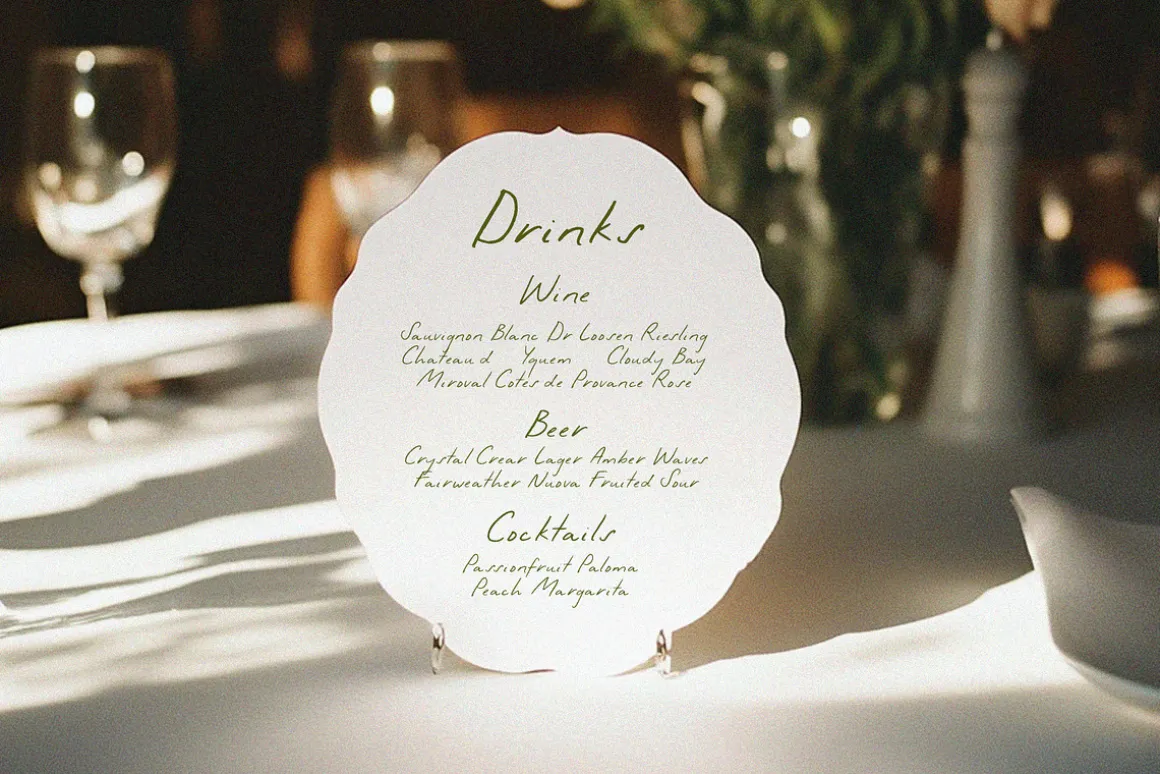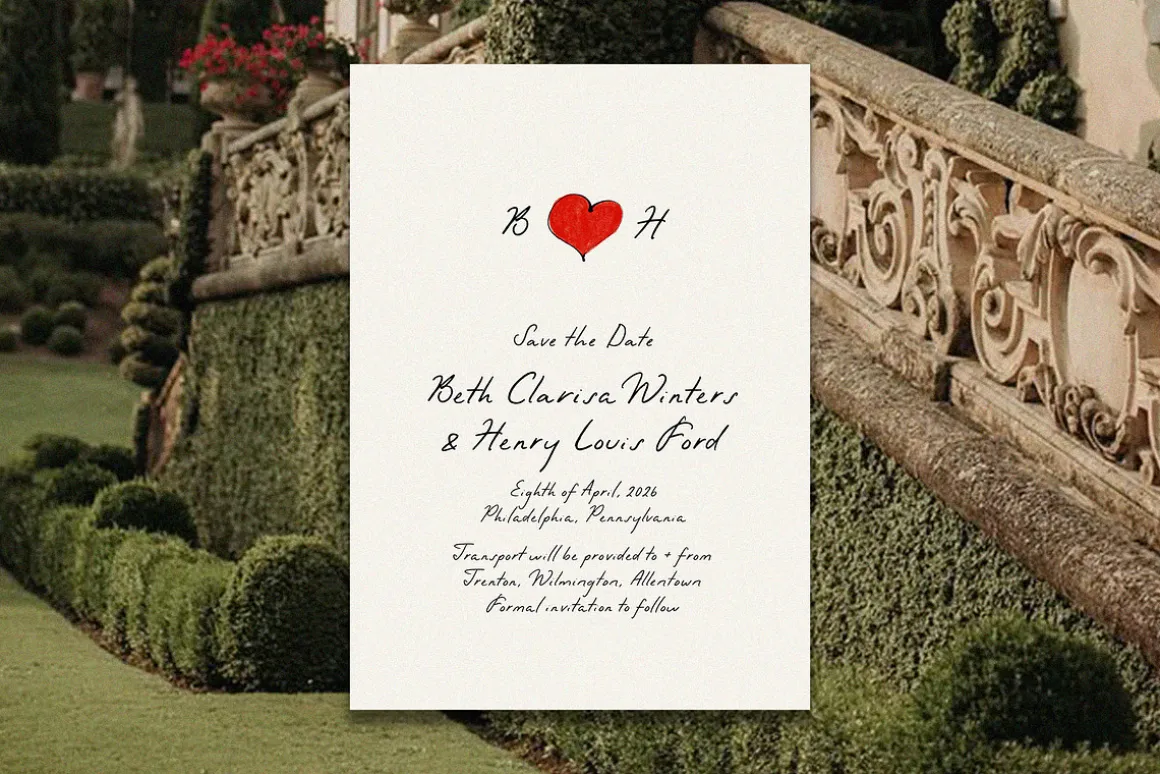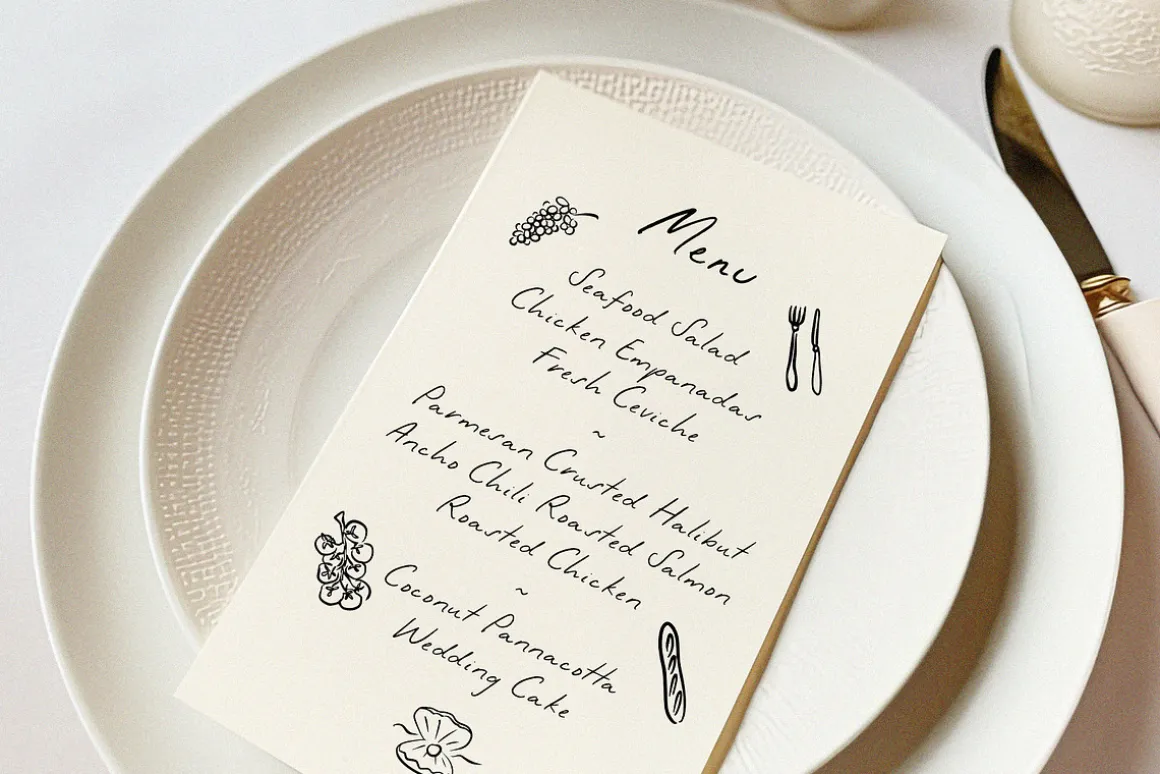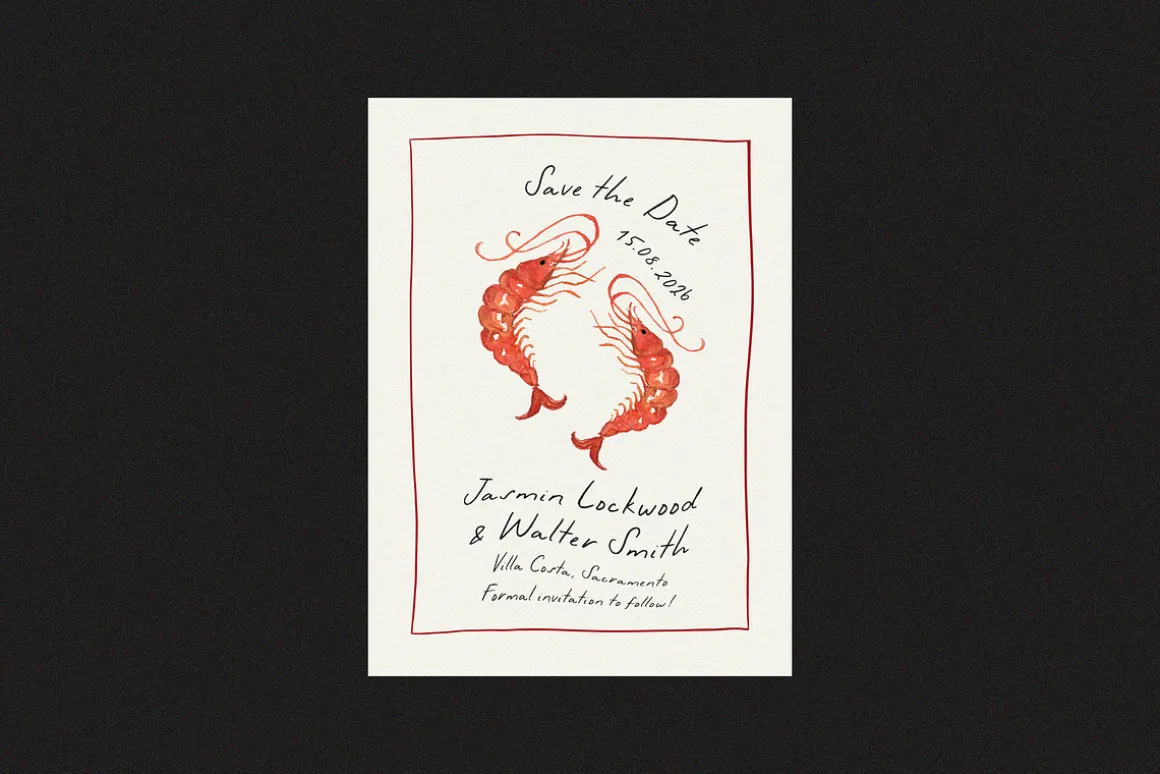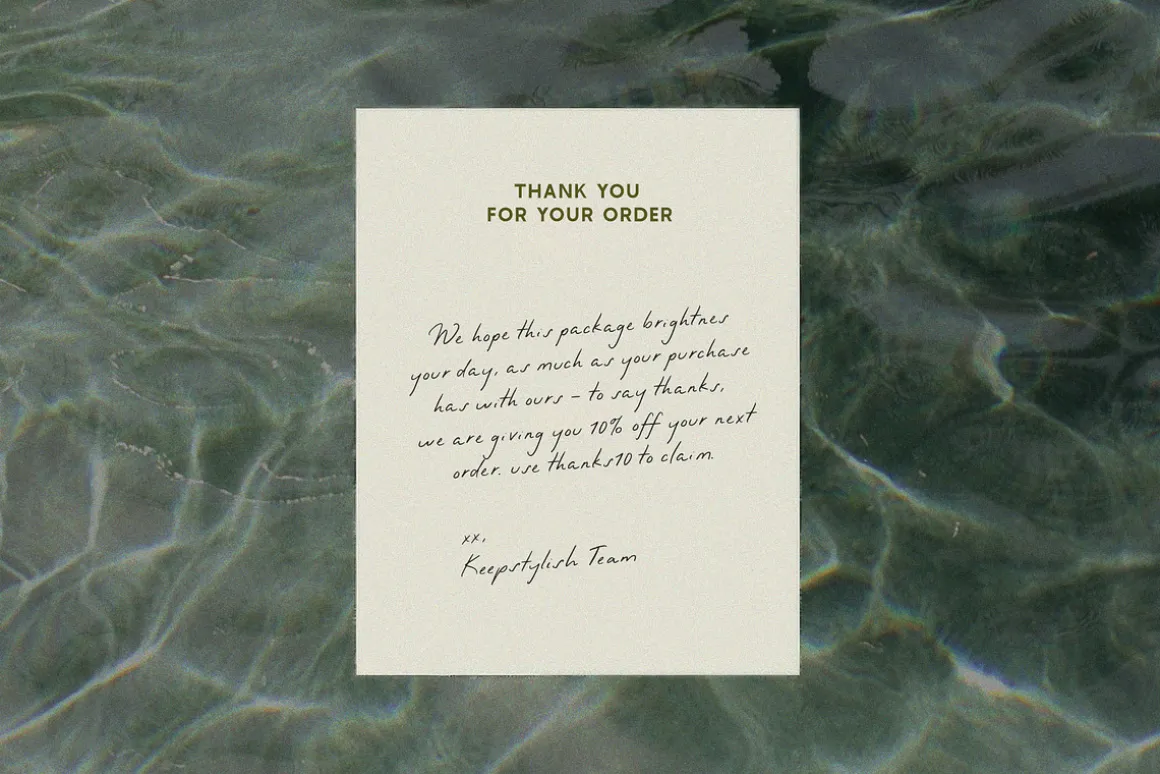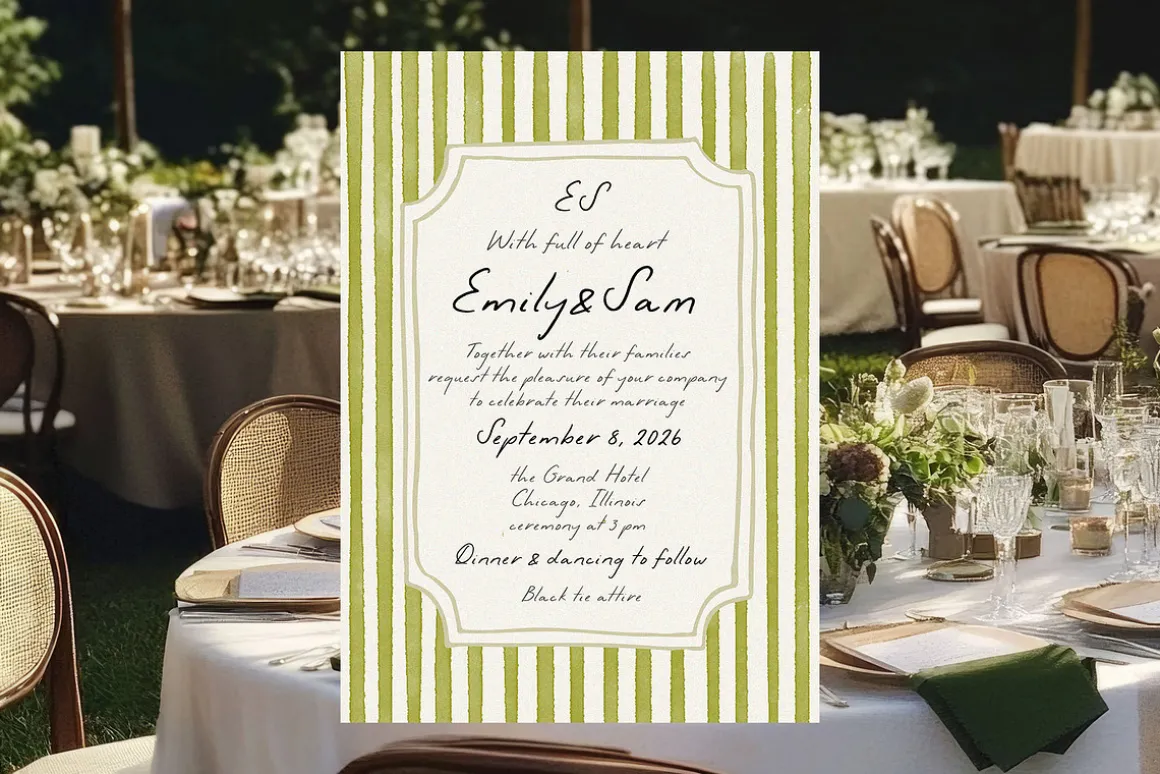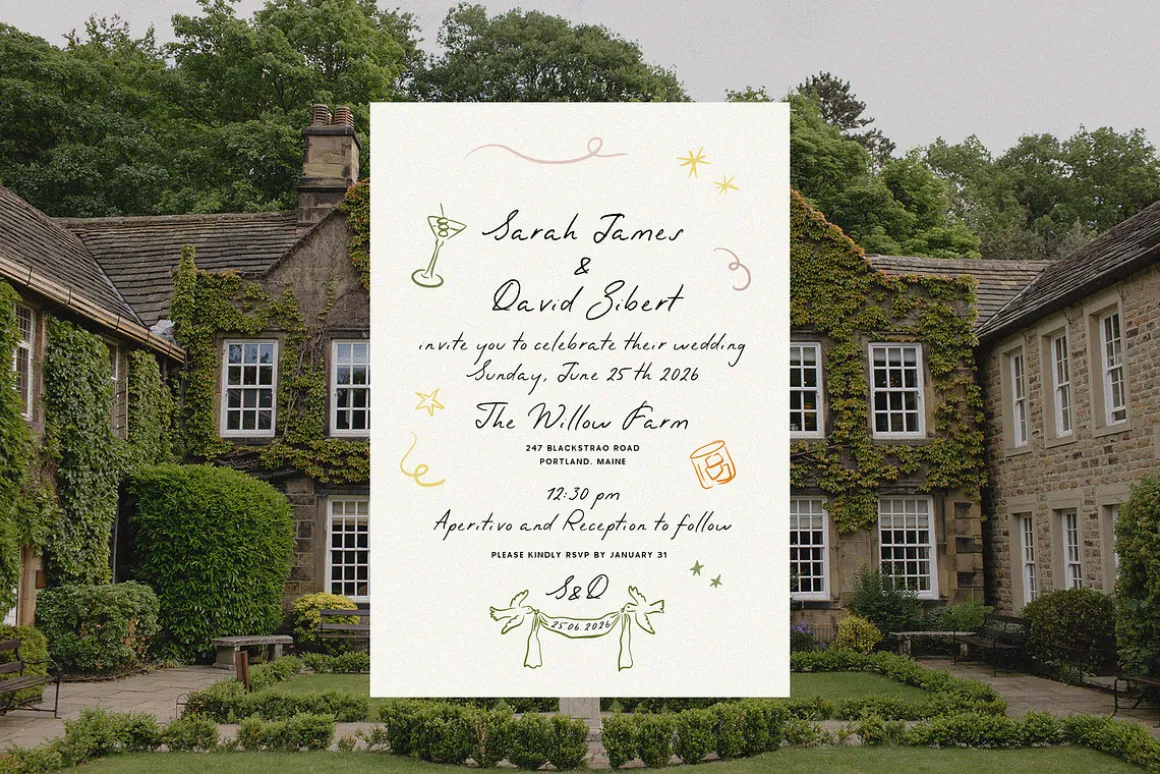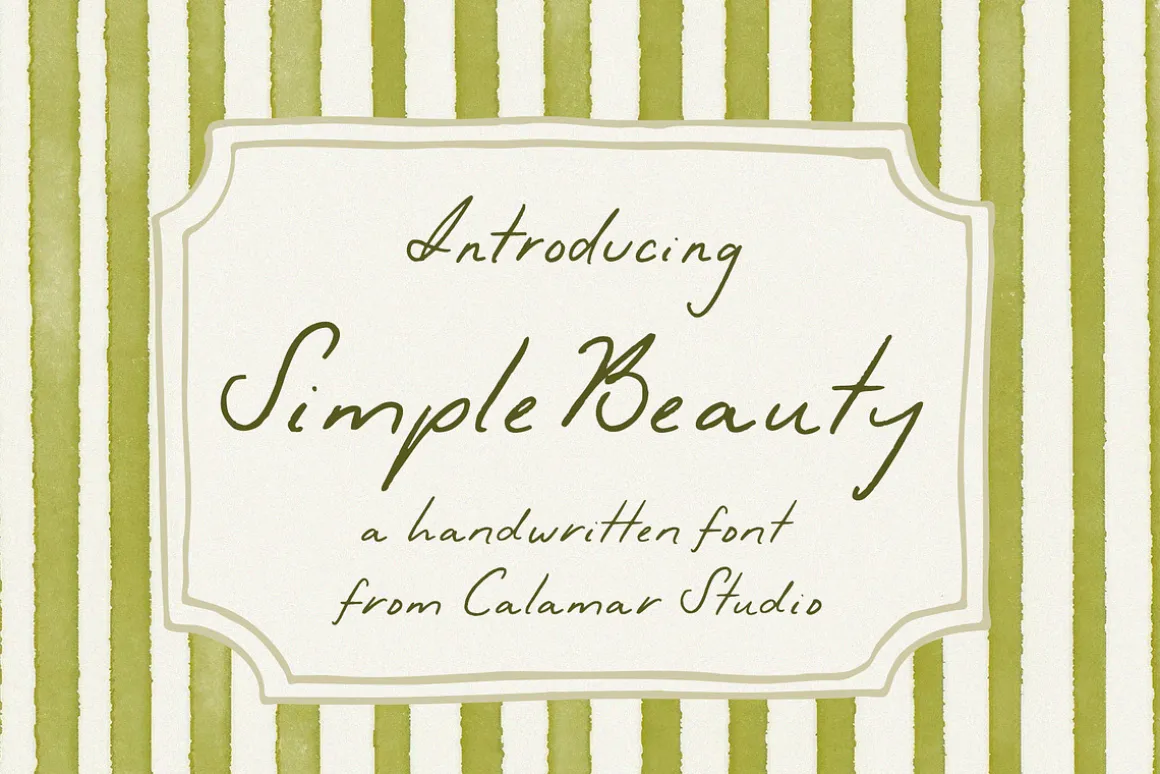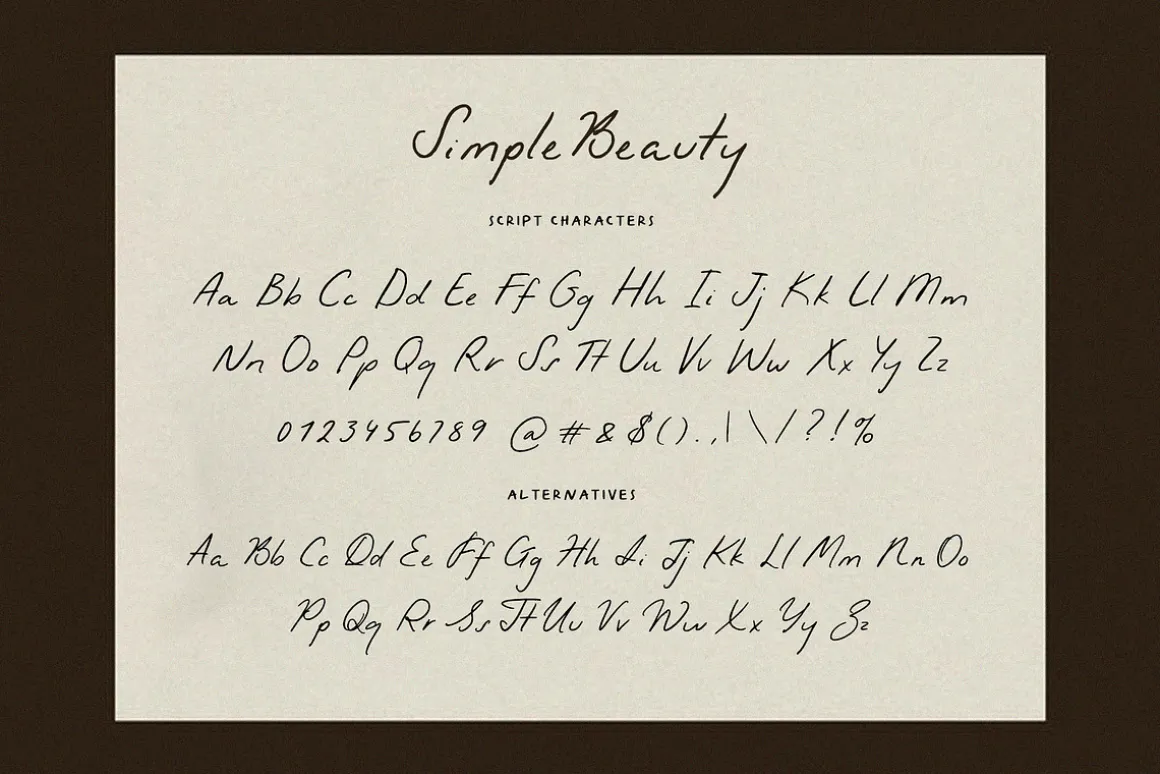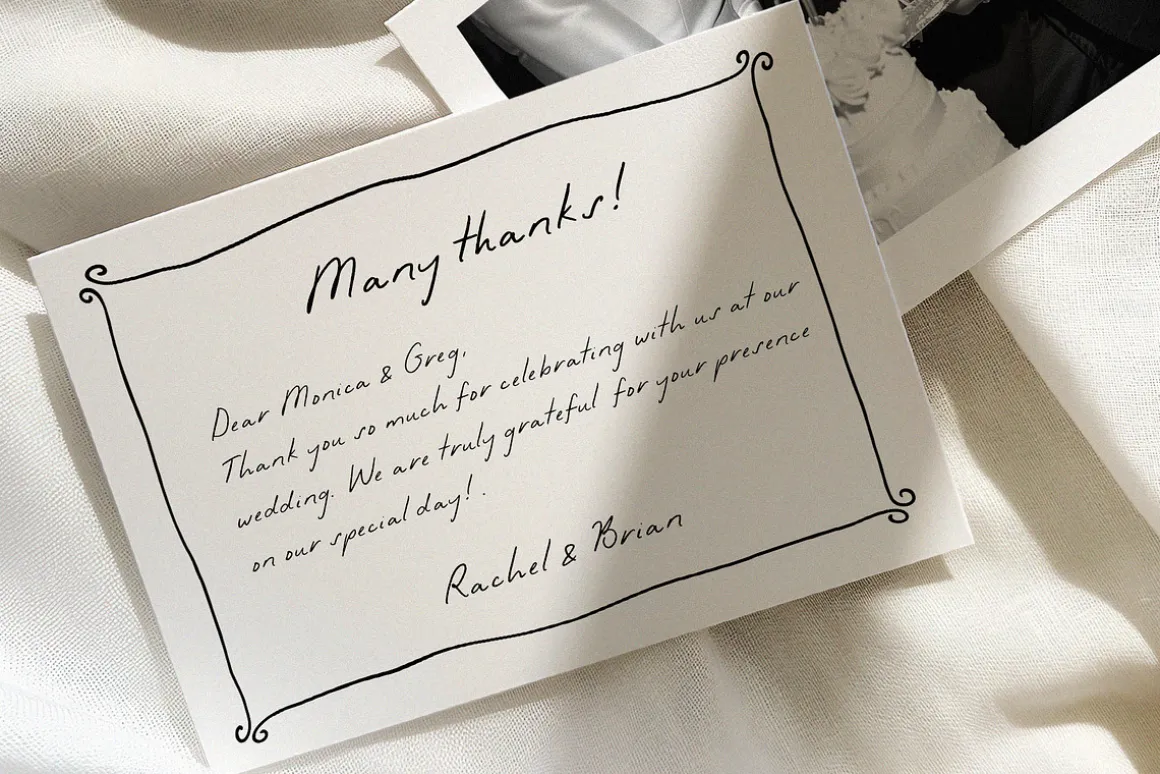
Discover the Simple Beauty font, a realistic handwriting font that brings a relaxed and unpretentious vibe to your designs. Its natural flair instantly adds an authentic look to any project. This font is perfect for wedding stationery, branding materials, and social media posts, adding a warm, personal touch.